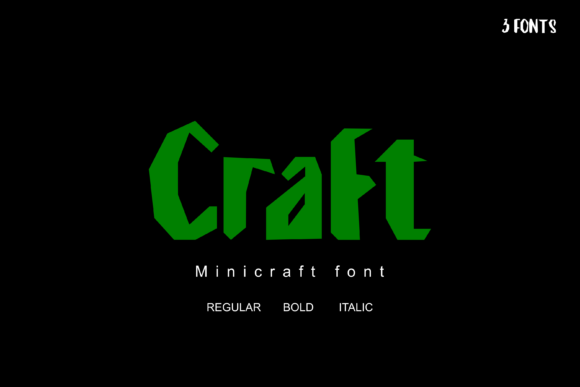
Dive into a world of imagination and creativity with Craft Font, a remarkable display font family designed to spark joy and inspire young minds. Crafted by the talented Brown Sugar, Craft Font is a unique and captivating font that will transform your designs into stunning works of art. Its horror and sharp shape add an element of intrigue and excitement, making it the perfect choice for projects that demand attention.
Craft Font is not just another font; it's an invitation to unleash your child's creativity and imagination. With its playful and energetic style, Craft Font is ideal for children's books, posters, invitations, and any project that aims to engage and entertain. It's a font that speaks to the child within, igniting their imagination and encouraging them to dream big.
With Craft Font, your designs will come alive with a vibrant and dynamic energy. Its unique horror elements create a sense of mystery and adventure, while its sharp shape adds a touch of sophistication and elegance. Whether you're creating a poster for a school play, designing a birthday invitation, or simply expressing your child's creativity, Craft Font is the perfect choice.
So, step into the world of Craft Font and open the door to endless possibilities. Let your child's imagination soar as they explore the captivating world of horror and creativity. With Craft Font, every design becomes a journey of discovery, a chance to express themselves in a way that's both unique and unforgettable.
- Unique horror and sharp shape
- Perfect for children's books, posters, invitations, and more
- Captivating and eye-catching design